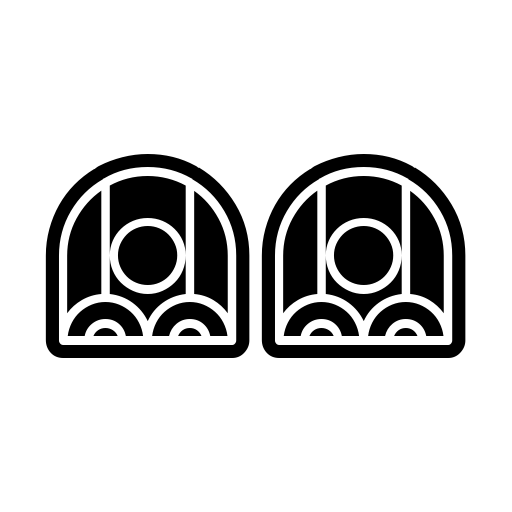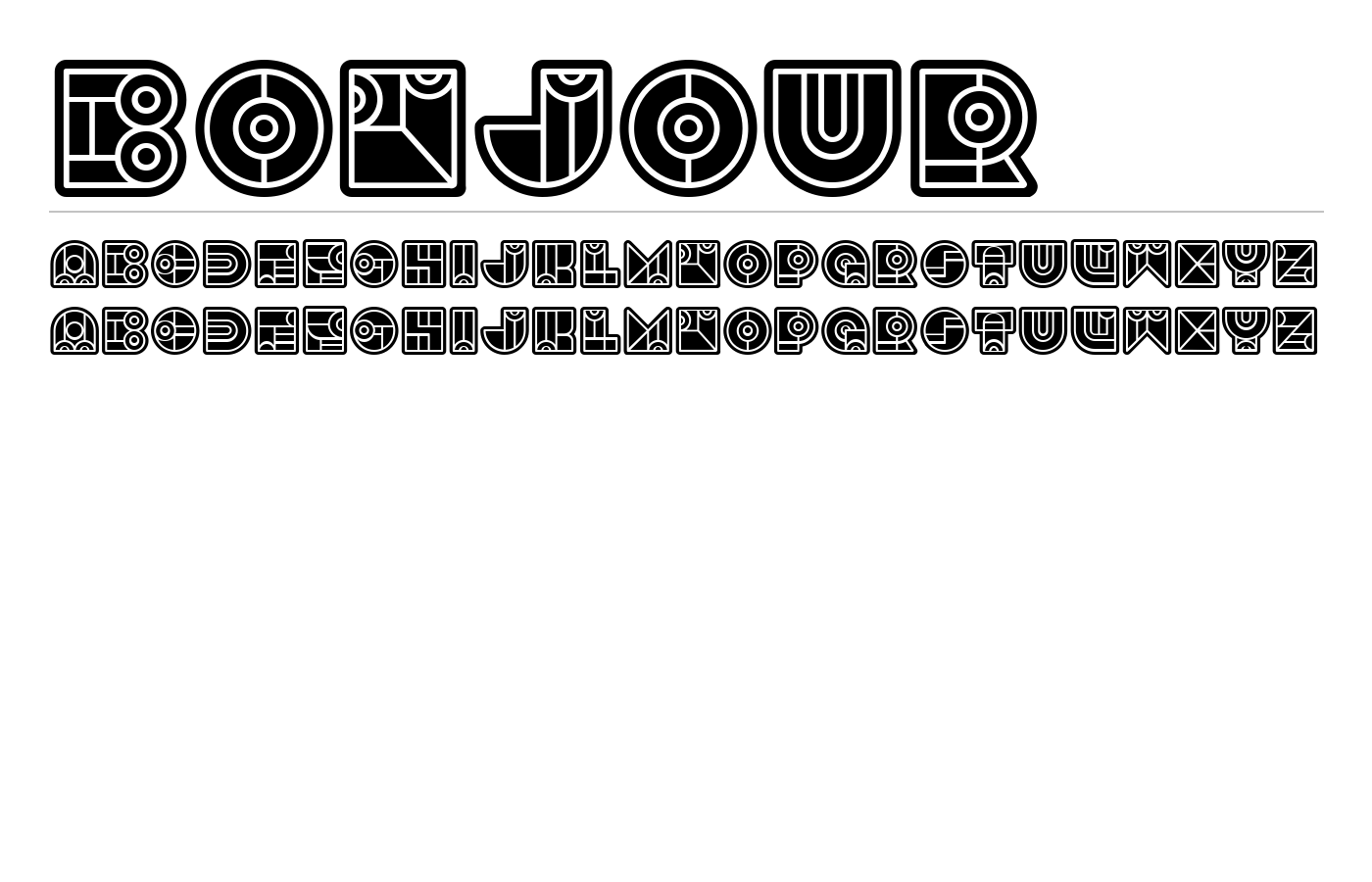
Bonjour Font is a bold, geometric display typeface with a strong modern and playful vibe, featuring intricate line details and distinct shapes within each character. Its square, decorative letterforms with high contrast and clean, sharp edges make it perfect for eye-catching headlines, logos, and creative branding projects where a unique, artistic impression is desired. This font shines in designs that seek to stand out with a fun, contemporary personality.
Bonjour Font
About Bonjour Font